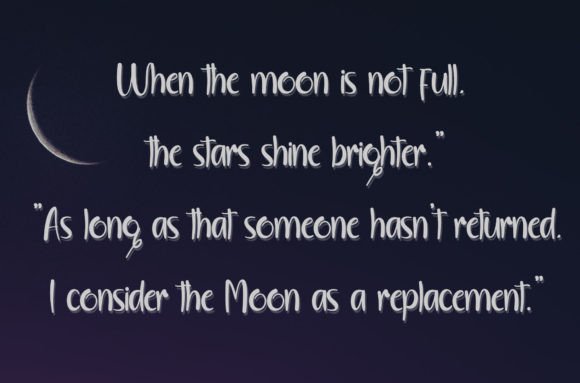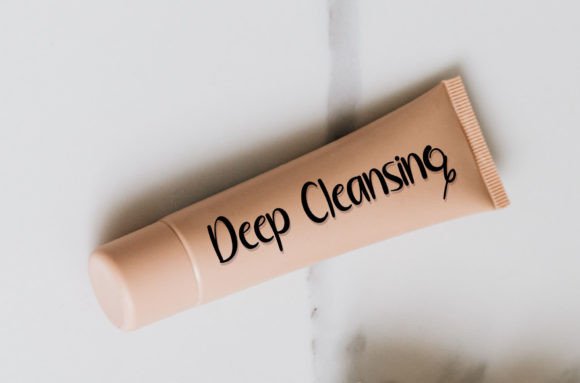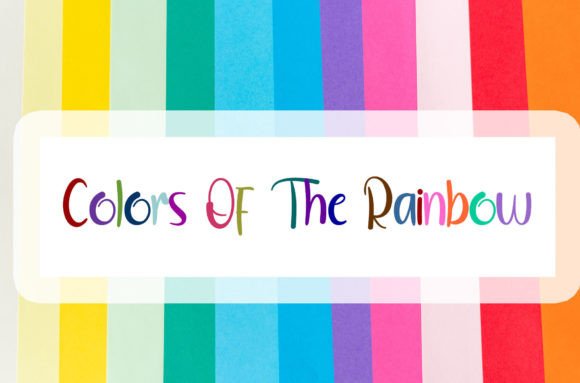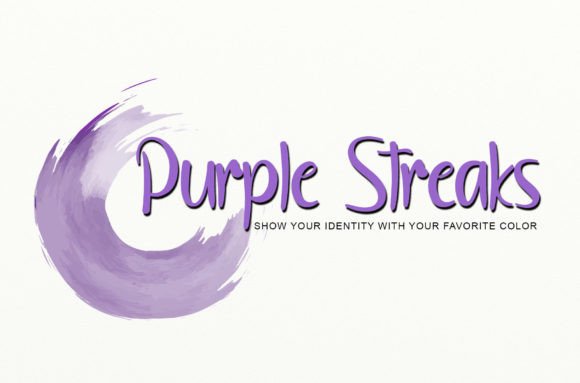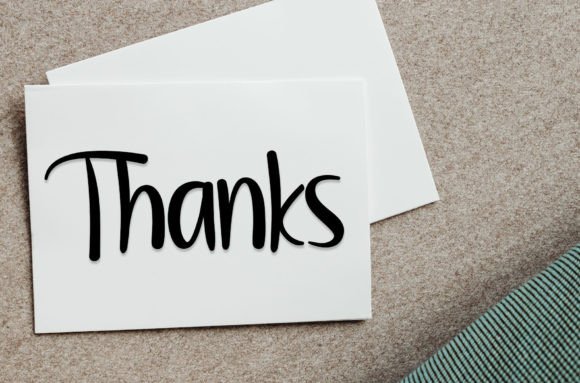
Unleash Your Creativity with the Perfect Font
Have you ever found yourself scrolling through social media, only to be stopped in your tracks by a beautifully designed post that makes you feel all the feels? For many of us, it’s that perfect combination of colors, textures, and typography that makes a design truly unforgettable. And let’s be real, a great font can make all the difference!
That’s where the Holiday Font comes in – a fun and bright handwritten font that’s perfect for adding a touch of whimsy to your designs. Whether you’re looking to create a festive Instagram post or a handmade card for a loved one, this font is sure to bring your creative ideas to life. As a designer, you know how valuable it is to have a versatile and reliable font at your disposal – and that’s exactly what the Holiday Font offers.
Holiday Font Key Features
- Size: Holiday Font comes in two versions – a regular version with 256 glyphs and a deluxe version with 500 glyphs, providing extensive character coverage.
- Unique Characteristics: This font features a festive, handwritten style with intricate details and ornaments, making it perfect for holiday-themed designs, invitations, and cards.
- Language Support: Holiday Font supports multiple languages, including English, Spanish, French, German, Italian, and many more, ensuring global compatibility.
- Font Weight and Style: Available in various weights, from Light to Bold, and styles, including Regular, Italic, and Script, allowing for versatility in design applications.
Designer Review: Holiday Font
As a designer, I’m always on the lookout for unique and creative fonts to add some magic to my projects. Holiday Font is a festive and cheerful font that’s perfect for the holiday season or any time you want to add some sparkle to your design. Here’s my honest review of this font.
- ✨ Unique and creative design that stands out from the crowd
- ✨ Perfect for holiday-themed projects or any project that needs a touch of festivity
- ✨ High-quality vector files for seamless scalability
- ✨ Available in a range of weights and styles to suit different design needs
- ⚠️ Limited use cases outside of the holiday season (although it can still be used in creative ways)
- ⚠️ Some characters may not be easily readable in certain font sizes or styles
Overall, I think Holiday Font is a great addition to any designer’s toolkit. While it may have some limitations, its unique design and high-quality files make it a great choice for holiday-themed projects or any project that needs a touch of festivity. Just be mindful of its use cases and adjust your design accordingly.
Holiday Font is perfect for creating festive and holiday-themed designs, such as:
– Christmas cards and invitations
– New Year’s Eve party decorations
– Halloween costumes and accessories
– Easter egg designs
Tips for Getting the Most Out of Holiday Font
For the best results, use Holiday Font in conjunction with other festive graphics and elements, such as:
– Holiday-themed graphics and icons
– Bright and bold colors
– Decorative borders and frames
Alternatives to Holiday Font for Designers
Great Vibes is a modern, elegant script font perfect for creating a festive atmosphere. It’s ideal for use in titles, headings, and short phrases where a touch of elegance is required. In comparison to Holiday Font, Great Vibes has a more refined and sophisticated feel, making it suitable for high-end designs.
Carolyna Pro is a luxurious, high-end script font that exudes sophistication and elegance. It’s perfect for use in luxury brands, high-end fashion, and premium product designs. Compared to Holiday Font, Carolyna Pro has a more refined and intricate feel, making it suitable for designs that require a touch of luxury.